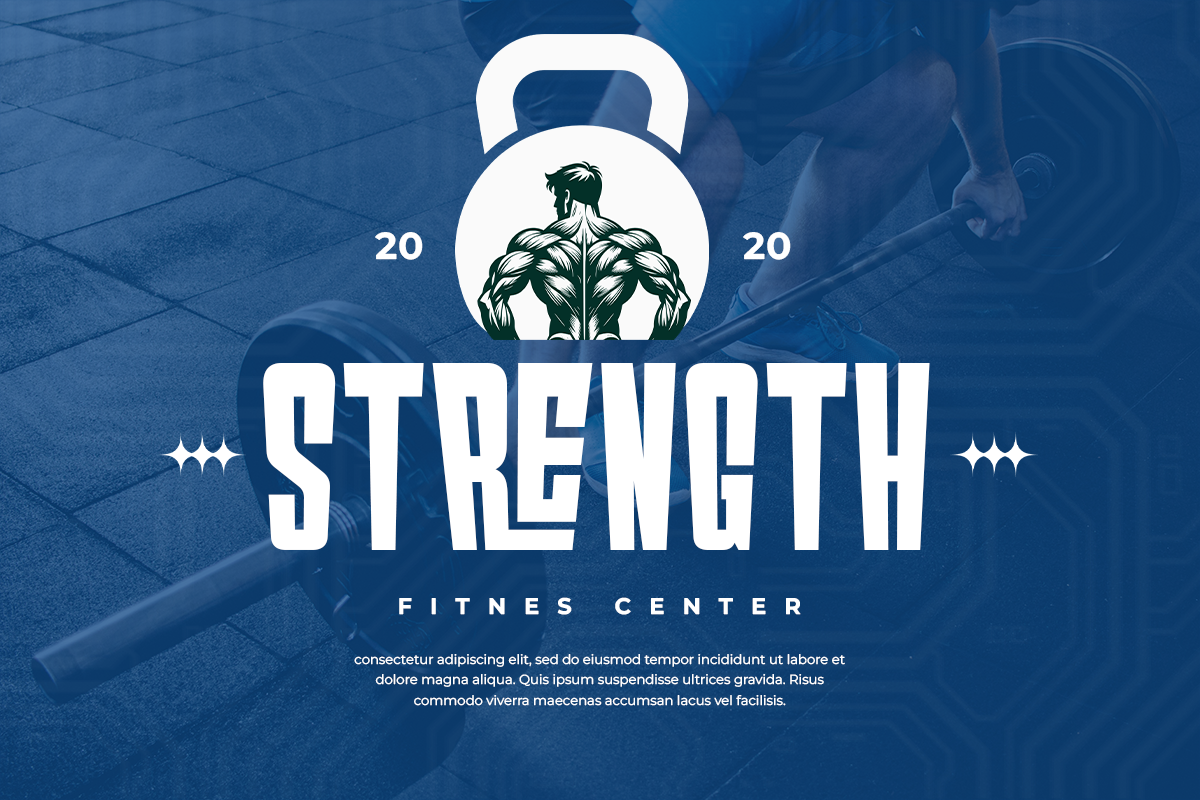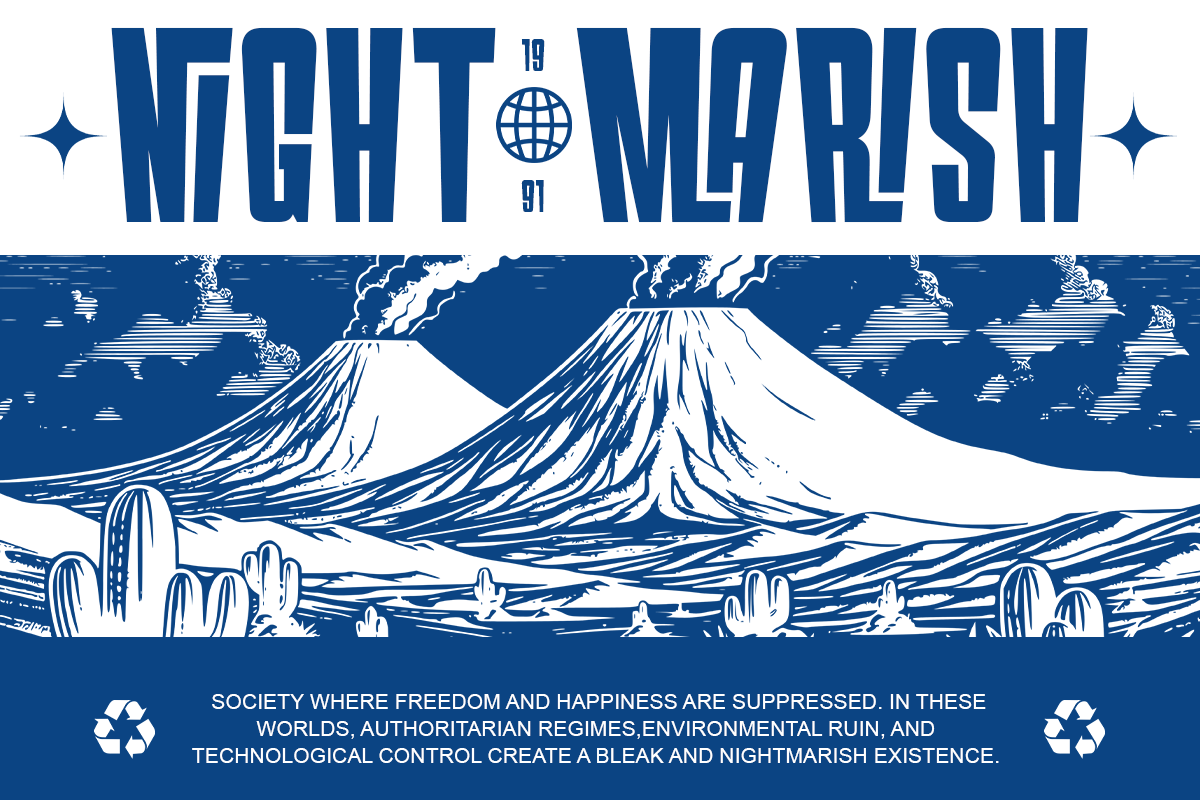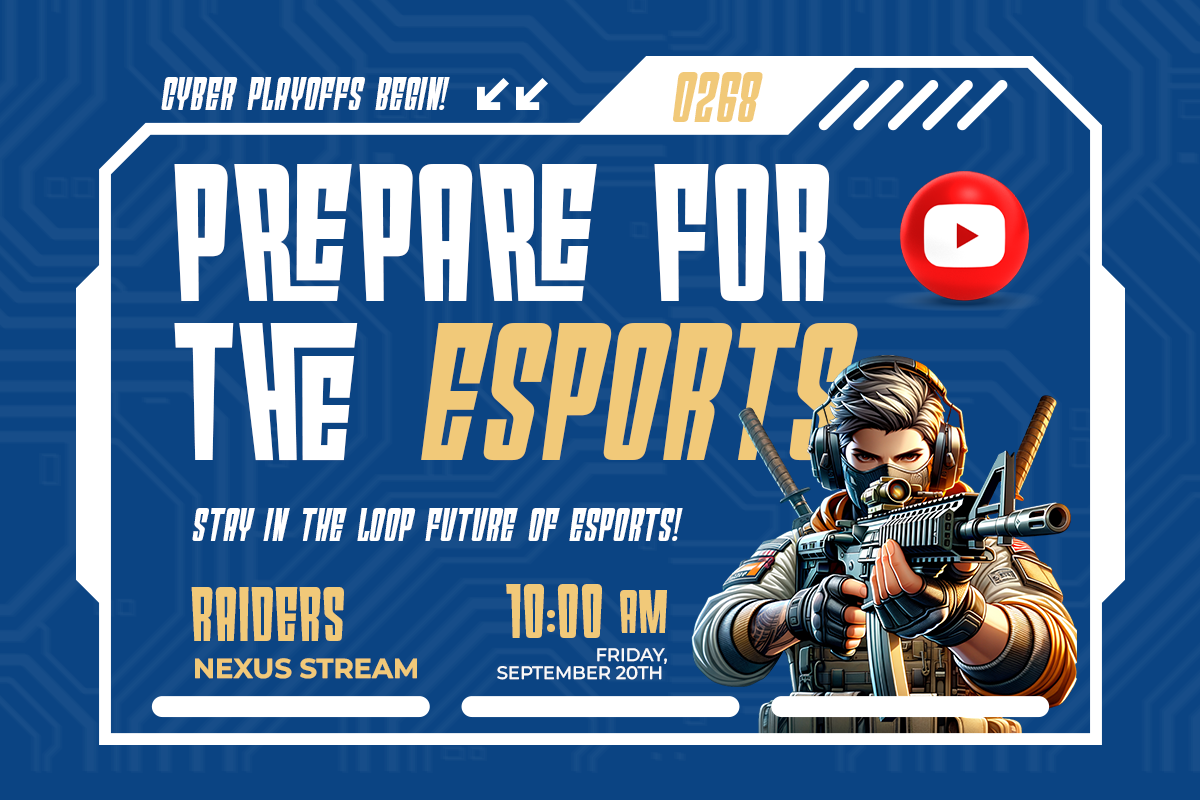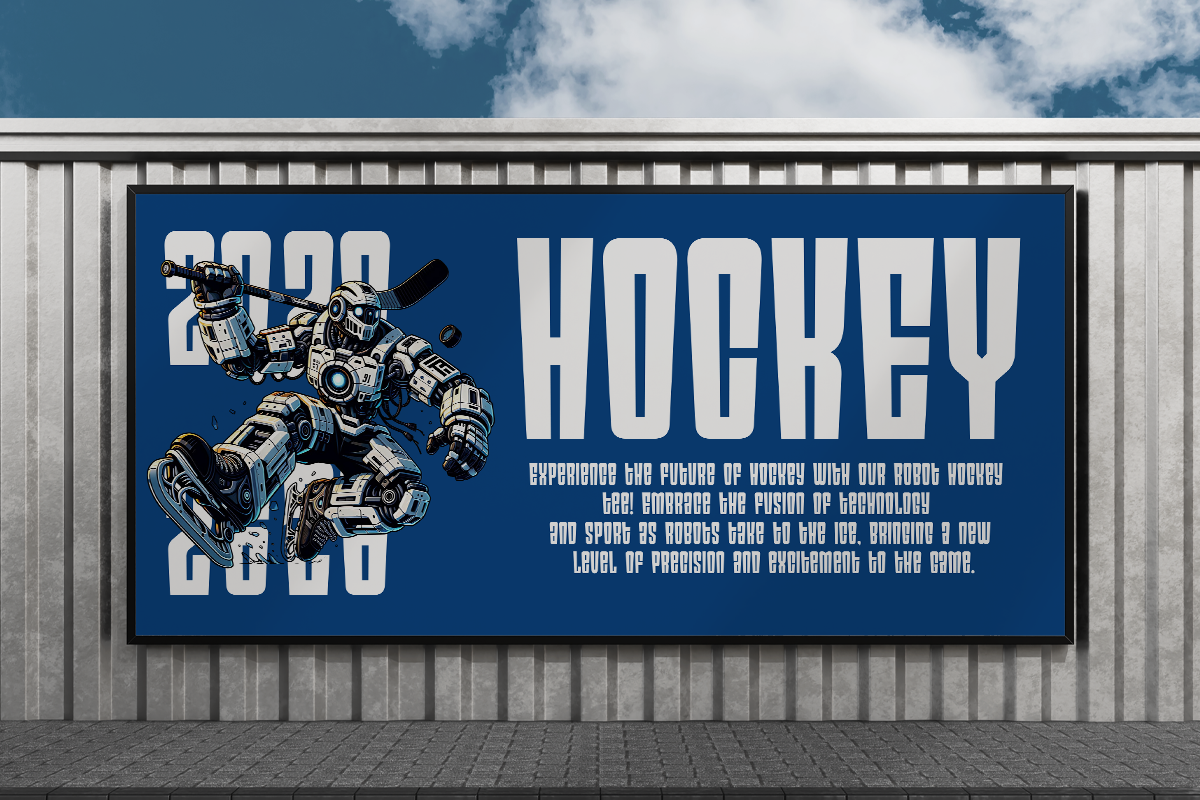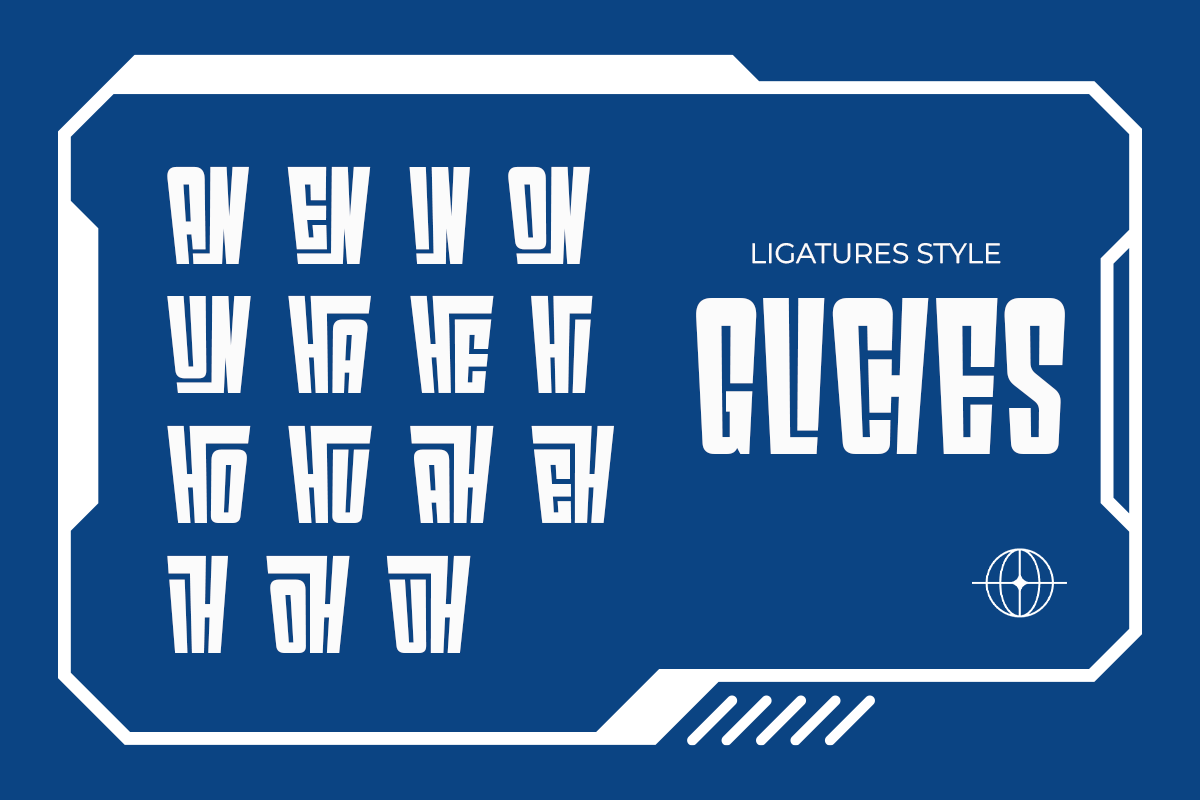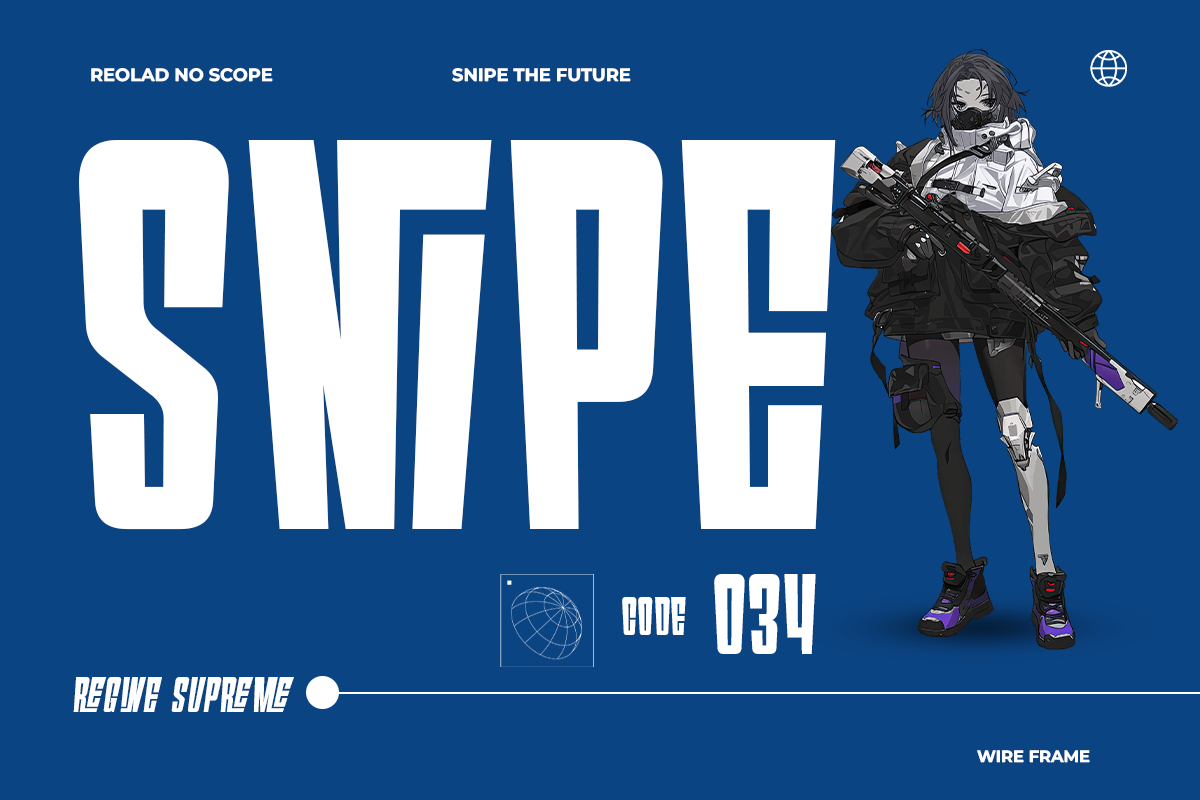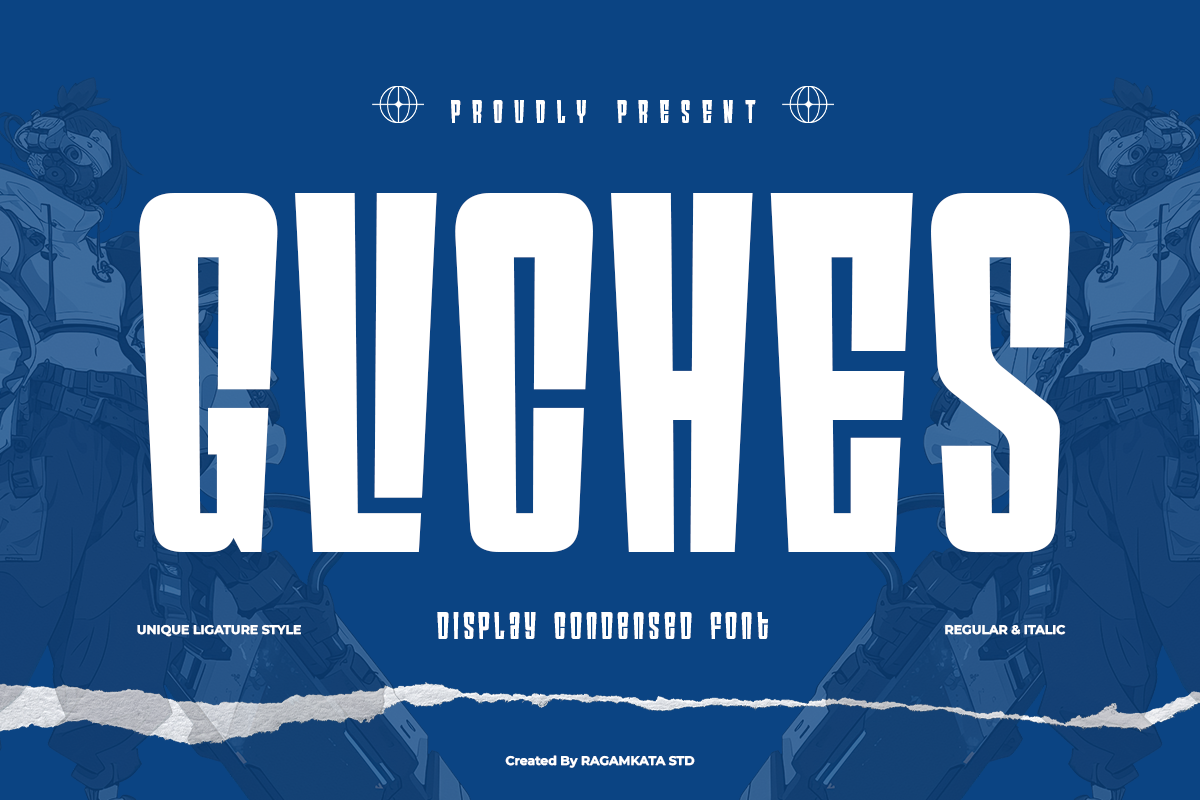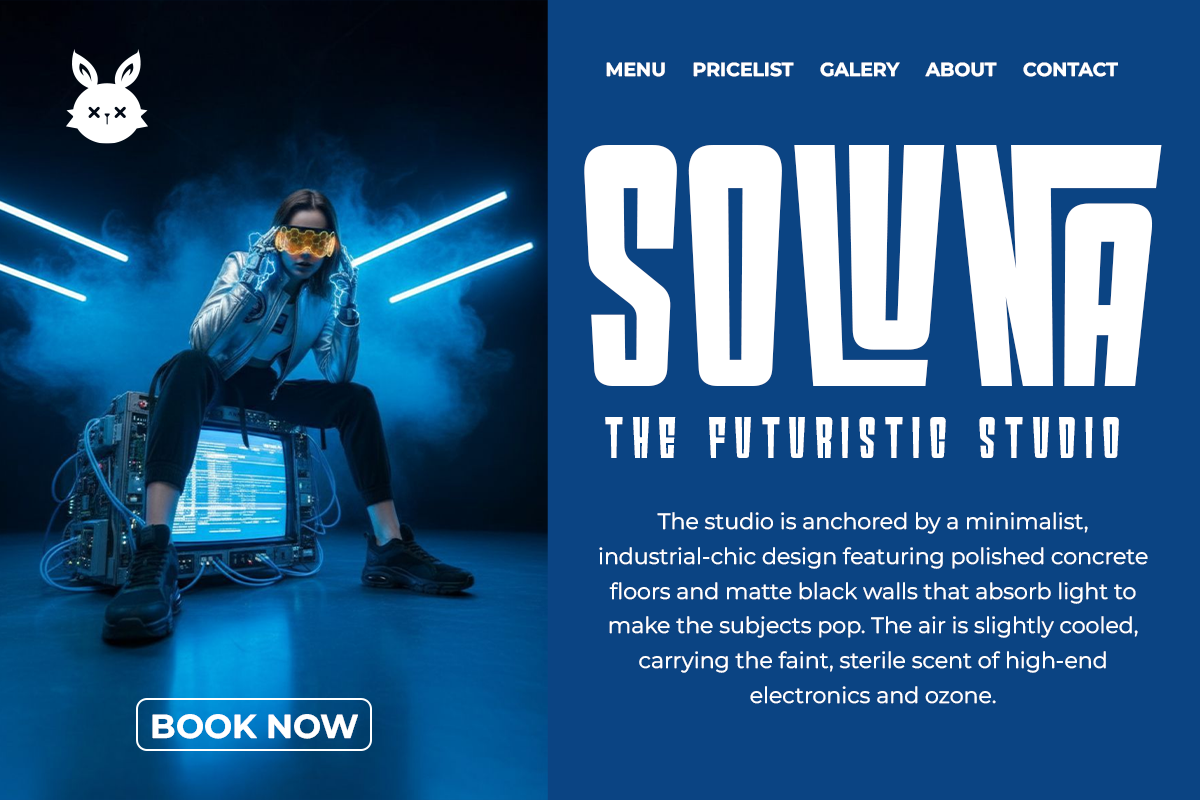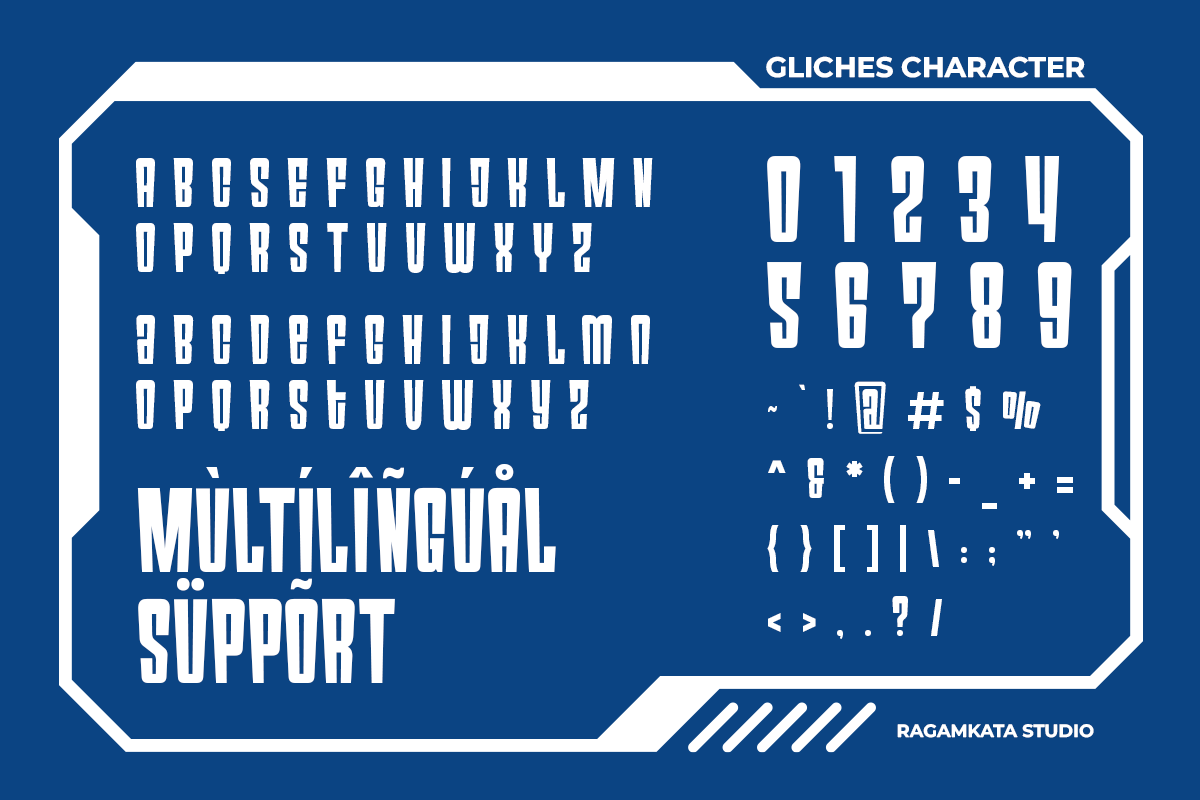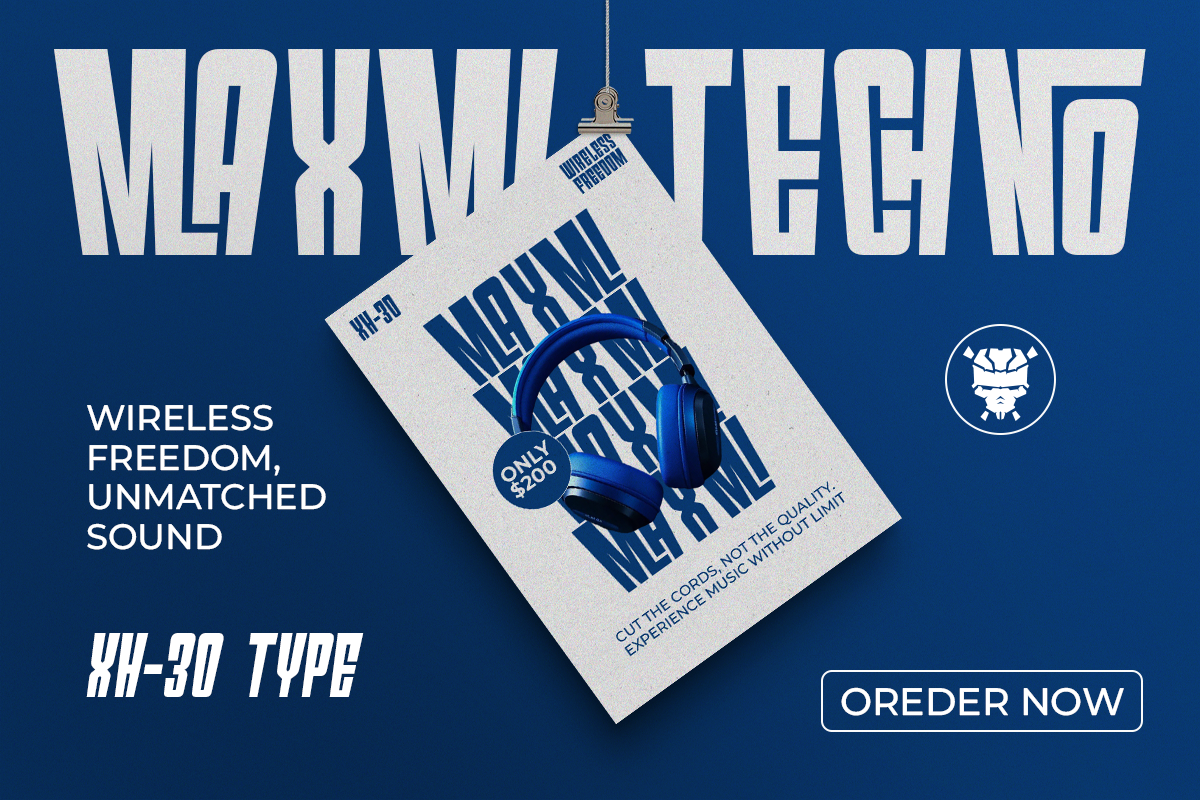
Gliches - Display Condensed Font
Gliches is a bold condensed display font built for high-impact visuals and strong typographic presence. Inspired by modern gaming aesthetics and urban poster culture, this typeface delivers a striking balance between compact structure and powerful readability. Its tall, narrow forms make it perfect for grabbing attention in tight spaces without losing visual dominance.
Designed with a futuristic yet aggressive tone, GLICHES brings energy into every composition. The unique ligature style adds a distinctive twist, giving designers more creative flexibility when crafting logos, headlines, or branding systems. Whether you're working on esports visuals, streetwear branding, or digital campaigns, this font injects personality instantly.
From posters to social media graphics, GLICHES stands out in bold environments. Its clean geometry combined with stylistic ligatures makes it versatile for both modern and experimental designs. If you’re looking for a font that feels loud, confident, and unapologetically modern—this is it.
- Stylistic Ligatures
- Number and Symbol